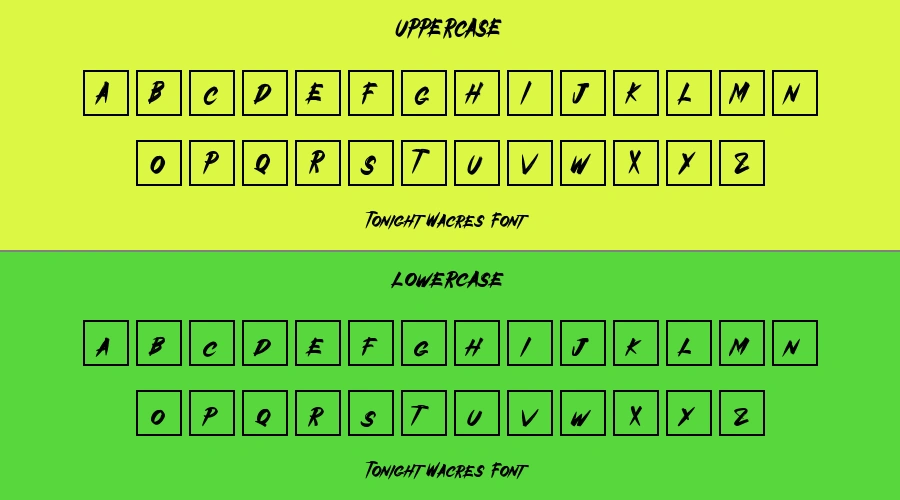
About Tonight Wacres Font
Tonight Wacres Font stands out for its distinctive combination of balanced weights and design harmony. Ideal for advertising headers, it provides the accuracy and creative impact that professional projects demand. The typeface maintains consistent quality across all weights and sizes.
Key features include refined width contrast and practical technical characters, enhancing typographic expression. In featured quotes applications, Tonight Wacres Font demonstrates exceptional small text clarity. The contrast level and market positioning contribute to its distinctive character and professional appeal.